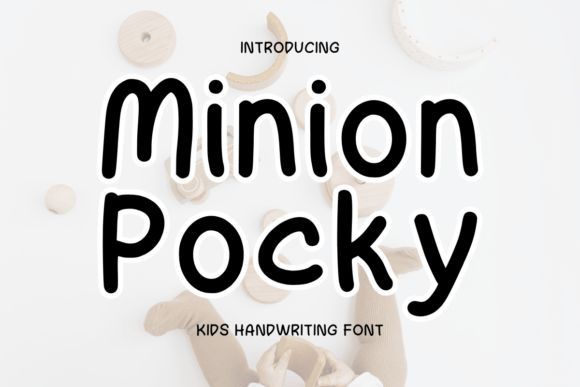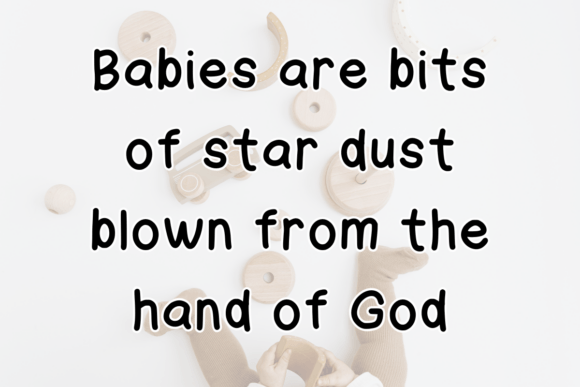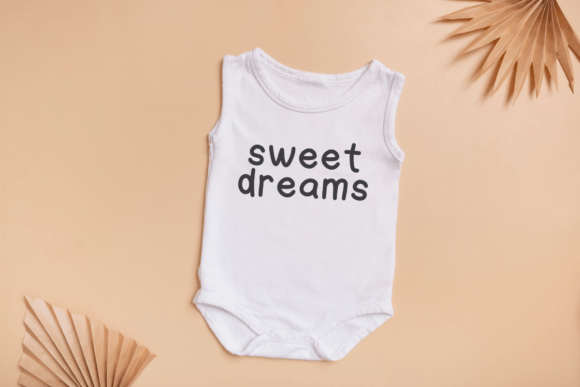
Minion Pocky Font
Inject a sense of festive cheer in your designs with Minion Pocky, an engagingly playful Christmas-themed sans serif font. Ideal for usage across an array of mediums – from kindle direct publishing and journals to notes and teaching materials – this font is your go-to solution for amplifying your creativity. Exude personality in your quotes, preserve your memories in scrapbooks, stay organized with planners, share your thoughts through memos, and spread joy with greeting cards – all with an added touch of Minion Pocky. Experience the thrill of breathing life into your creative visions with this delightful font.